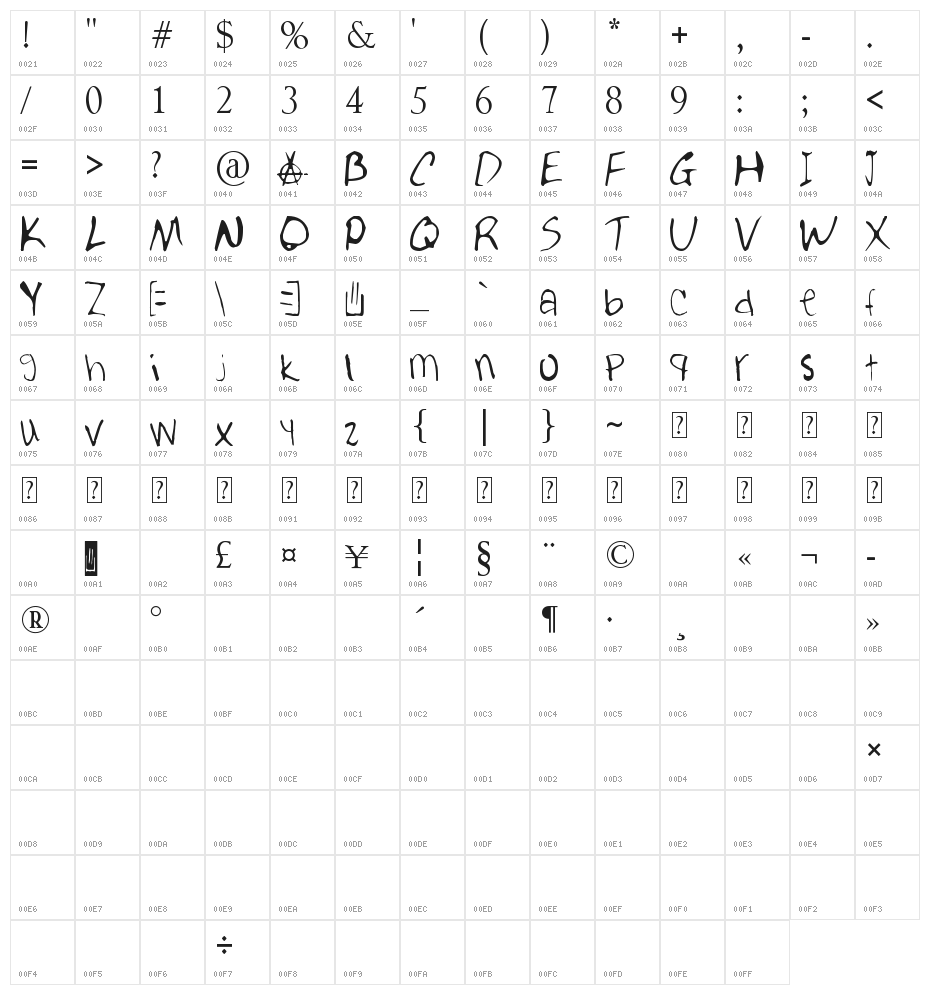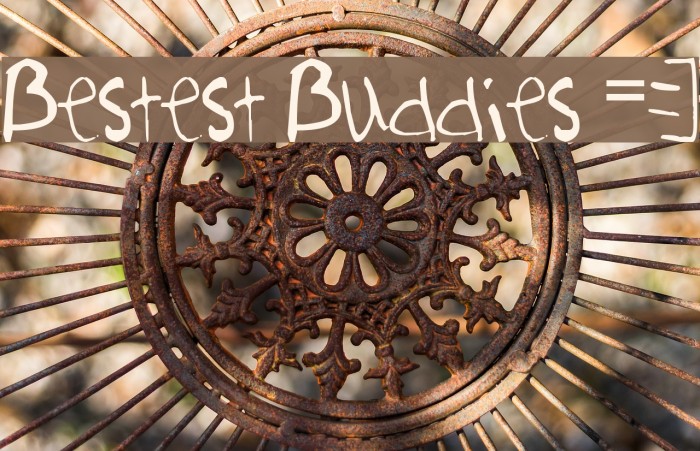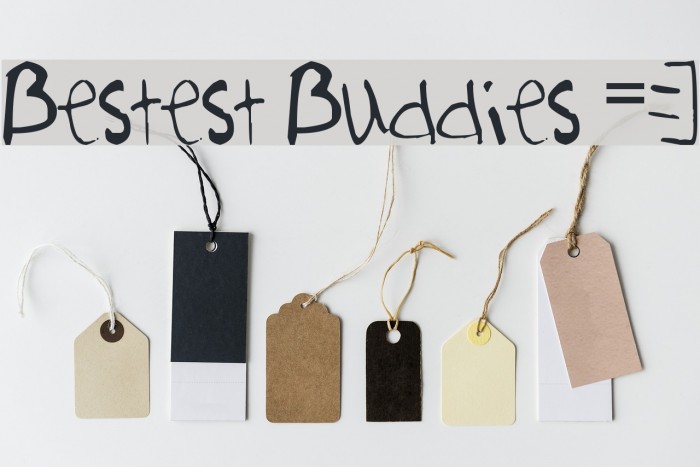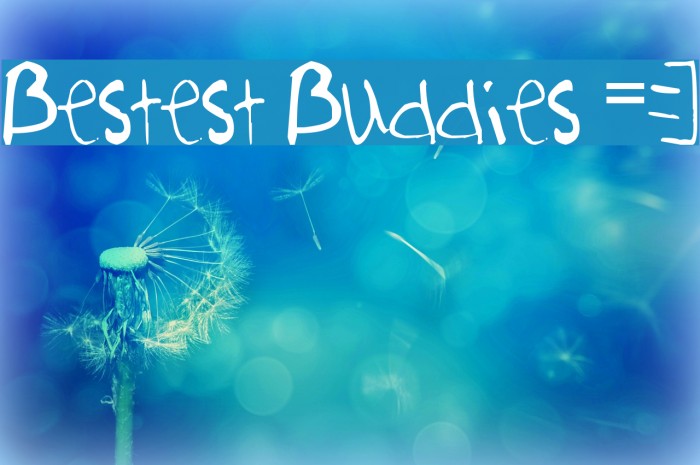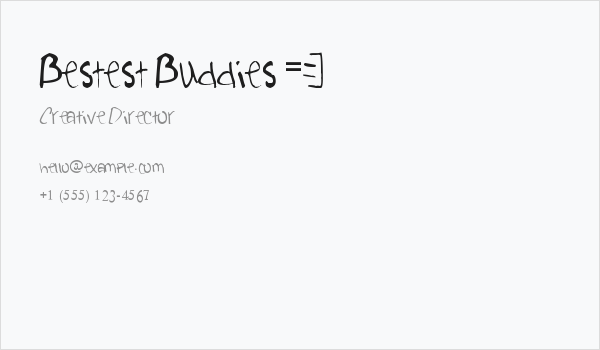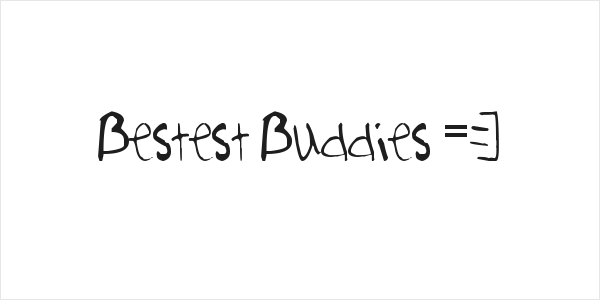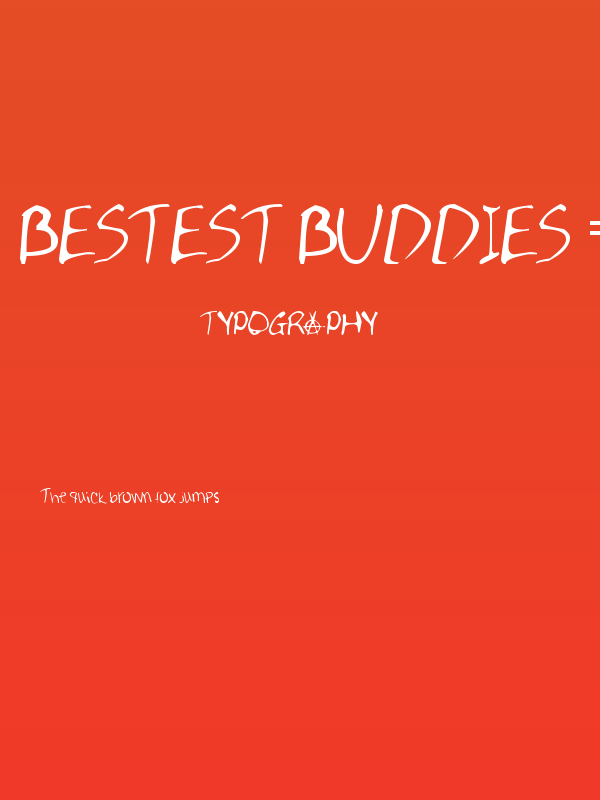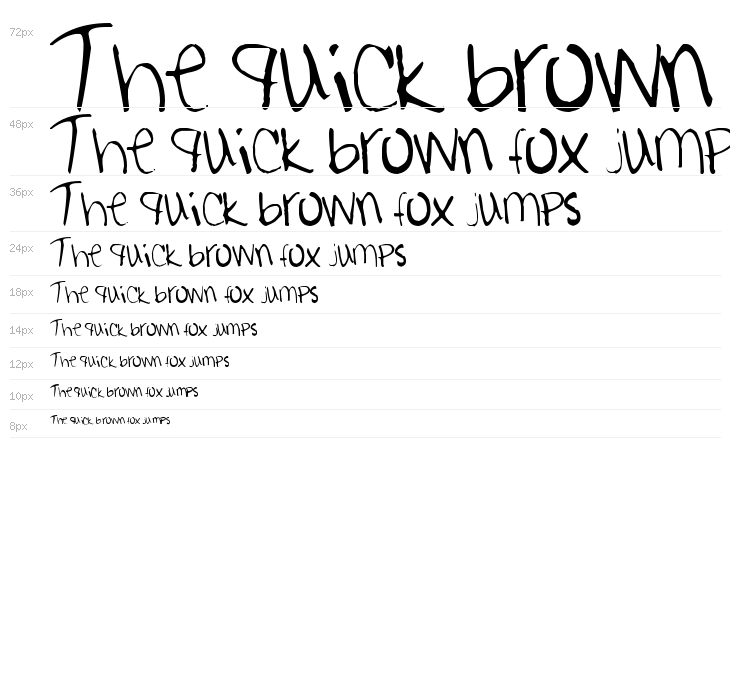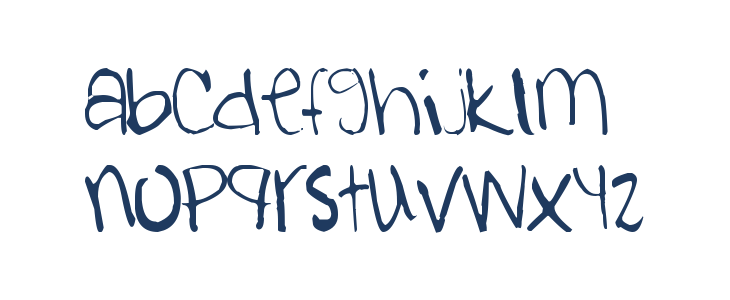
Bestest Buddies =] Font
Bestest Buddies =] Description
This font features a playful and energetic style, characterized by its hand-drawn appearance. The letters have an irregular, whimsical quality, with varying stroke widths that add a sense of movement and spontaneity. The uppercase and lowercase letters maintain a consistent style, with some letters exhibiting unique, artistic flourishes. The numbers and special characters complement the alphabet with a similar quirky design. This font's informal and lively nature makes it suitable for creative projects that require a personal touch.
| Proposed Projects | Ideal for children's books, greeting cards, playful branding, and creative posters. |